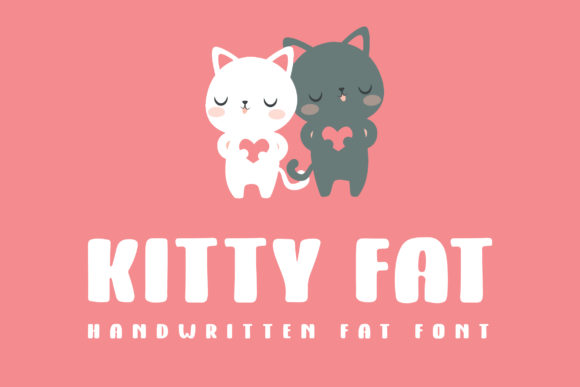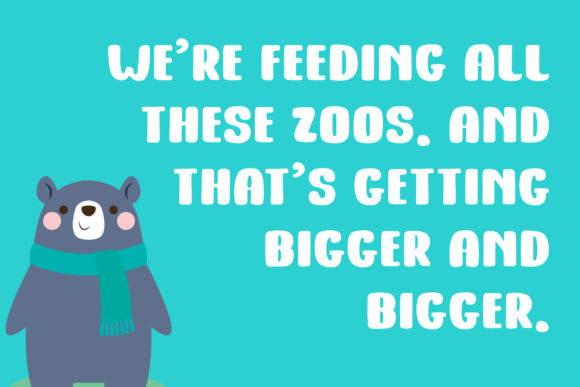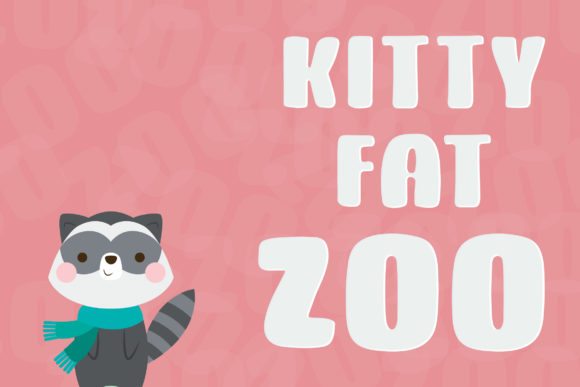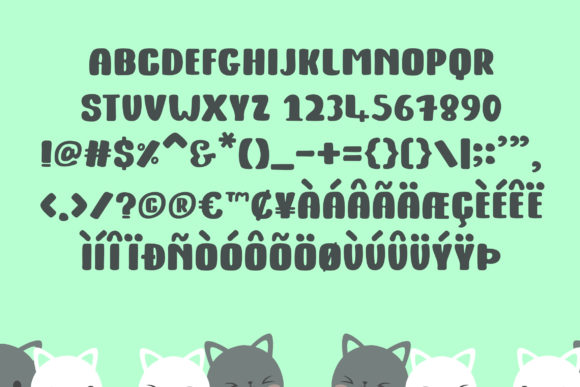
Kitty Fat Font
About Kitty Fat Font
The Kitty Fat is a new, handwritten font which was made with a large brush pen. It has a bold and smooth style which perfectly fits for kids and cartoon projects.